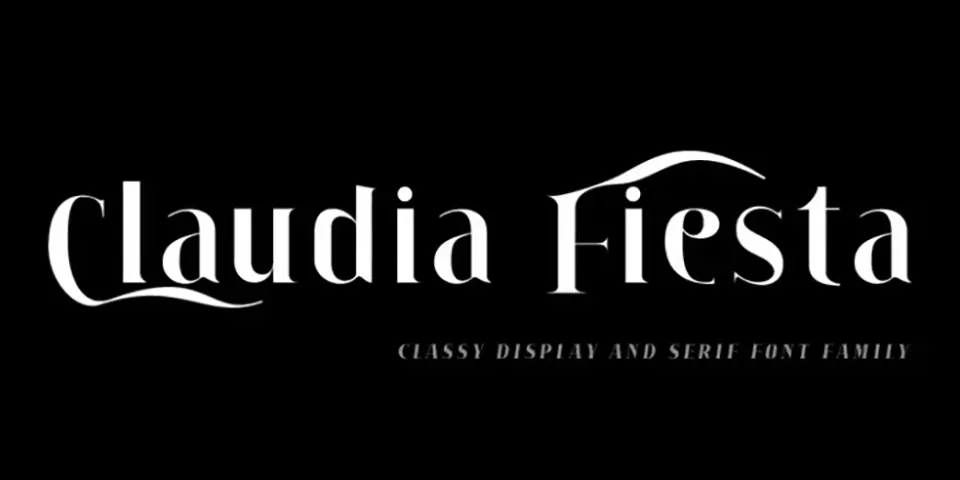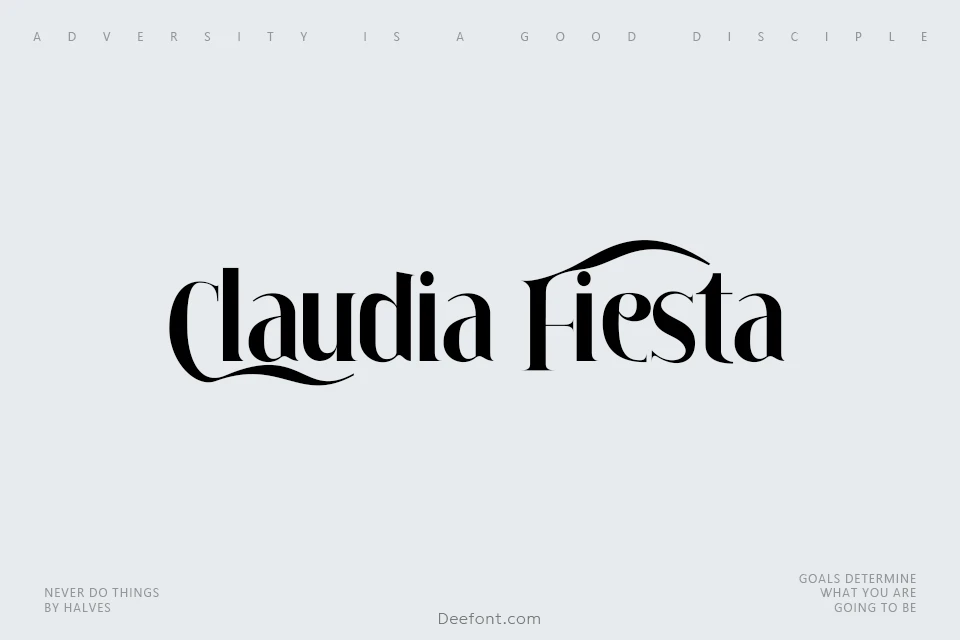
Claudia Fiesta Font
The Claudia Fiesta Font font is a sophisticated classic serif typeface designed to bring elegance and versatility to your creative projects. With a balanced contrast between uppercase and lowercase letters and distinguished stylistic alternates for uppercase glyphs, Claudia Fiesta stands out in display settings, branding, and editorial design. Its cultivated style and refined details make it ideal for luxury branding, invitations, and high-end editorial layouts.